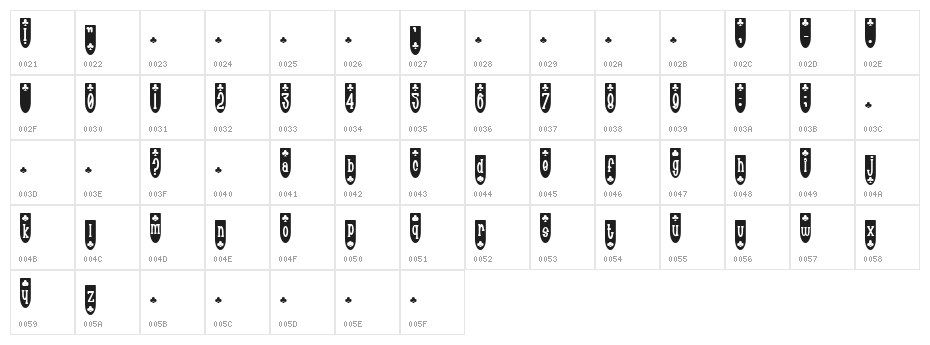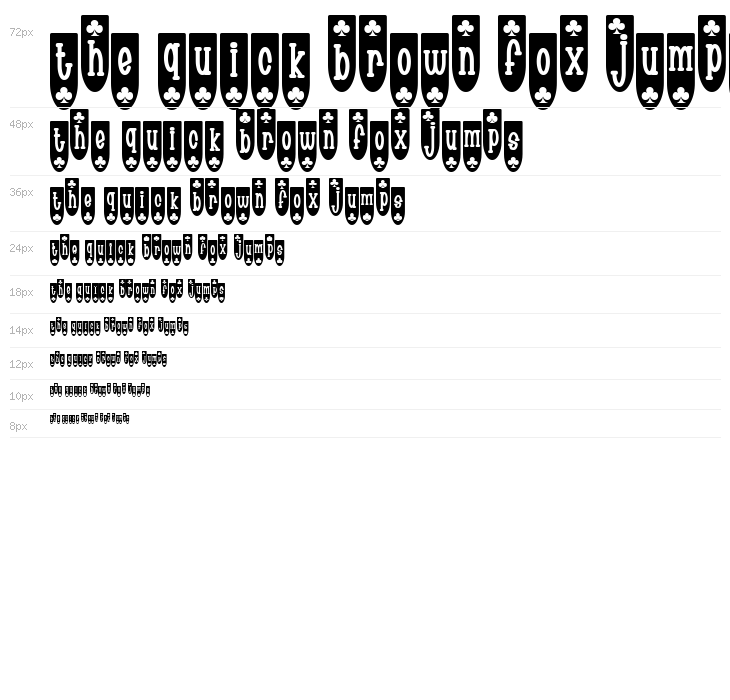
Populuxe Blub Font
Populuxe Blub Description
This font features a unique and playful design with each character enclosed in a shield-like shape, adorned with a clover symbol at the top. The letters are bold and have a whimsical, decorative flair, making them stand out distinctly. The font includes both uppercase and lowercase letters, numerals, and a selection of special characters. The overall style is reminiscent of vintage or retro designs, with a touch of modern creativity. The characters are evenly spaced, providing a balanced and cohesive look. This font is ideal for projects that require a fun and eye-catching typeface.
| Overall Style | Vintage, Decorative |
| Proposed Projects | Ideal for playful branding, retro-themed posters, children's book covers, and unique invitations. |